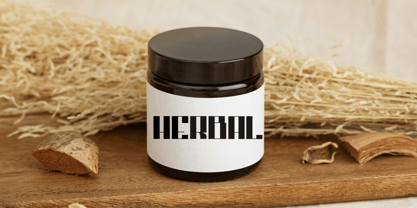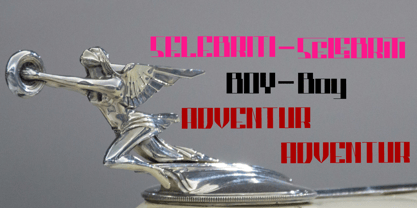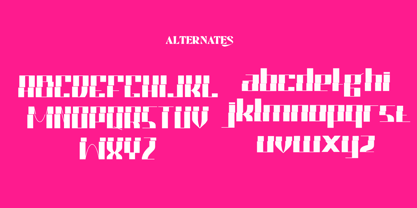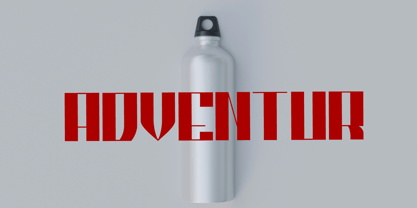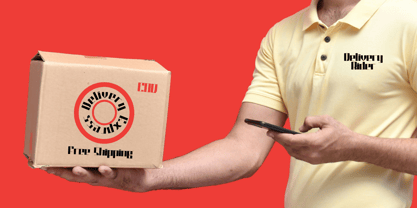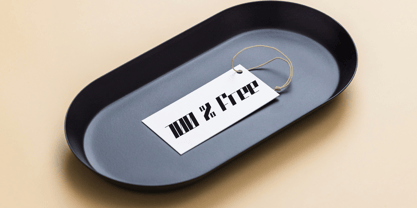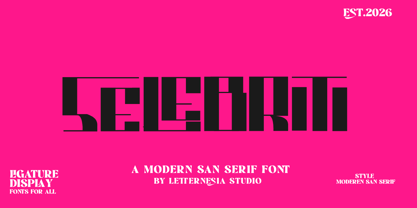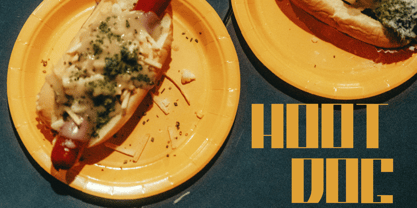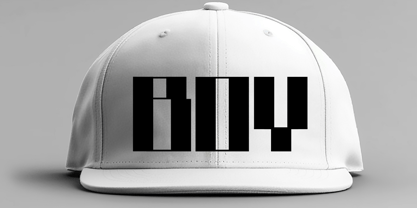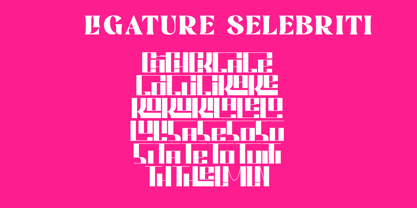
Ls Selebriti
by Letternesia studio
The Ls Selebriti Font Family was designed by Ta Siyo and published by Letternesia studio. Ls Selebriti contains 2 styles and family package options. More about this family
SELEBRITI is a bold display font designed to stand out with a modern, stylish, and eye-catching character. Inspired by luxury fashion, pop culture, and headline typography, this font delivers a strong visual impact perfect for branding and creative projects.
With its unique letterforms and confident appearance, SELEBRITI is ideal for posters, logos, magazine titles, social media graphics, packaging, music covers, and modern branding needs.
Perfect for designers who want a font that feels trendy, expressive, and full of personality.